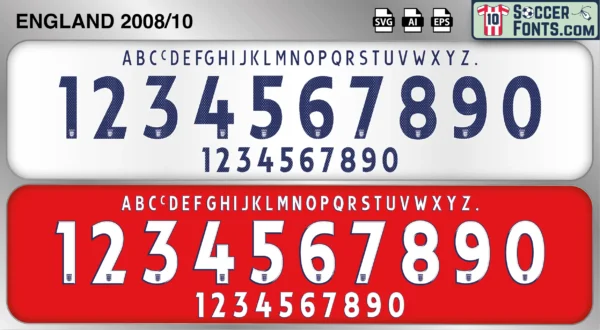
England 2008-10 Font
The England 2008-10 font is an editable soccer jersey lettering design in vector format inspired by the England kit style used during the 2008-10 football seasons. This football font artwork is prepared for football shirt recreations, custom jersey projects, football kit mockups and sports graphic design workflows.
The 2008-10 period represented a unique chapter in the history of the England national team. Following the disappointment of failing to qualify for UEFA EURO 2008, England entered a rebuilding phase under Fabio Capello with the objective of restoring competitiveness on the international stage. The squad featured experienced players such as Steven Gerrard, Frank Lampard, John Terry, Rio Ferdinand, Ashley Cole and Wayne Rooney, while continuing to benefit from the global popularity of the Premier League. England responded strongly during qualification for the 2010 FIFA World Cup, producing impressive performances and re-establishing itself among Europe’s leading national teams.
The England 2008-10 font became associated with the recovery from EURO 2008 disappointment and the road to the 2010 World Cup in South Africa. England shirts from this era remain recognizable among football shirt collectors because of their connection with Rooney’s rise as the team’s primary attacking star and one of the strongest qualification campaigns of the modern era. The England 2008-10 font reflects a period of determination, rebuilding and renewed optimism as the national team sought to return to major international tournaments and compete with the world’s elite.